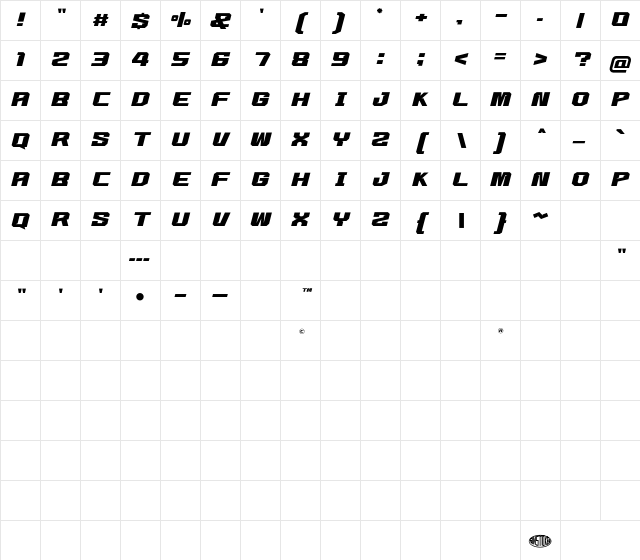
PROGRESSIVE SOUL Regular Free Font
PROGRESSIVE SOUL Regular
Foundry: Pol Udomwittaynukul
Designer: siinsticker
Year: 2021 (Sat, 20th Feb 2021)
Design Context for PROGRESSIVE SOUL
PROGRESSIVE SOUL is a composed and adaptable typeface that performs quietly and consistently across a wide range of design contexts.